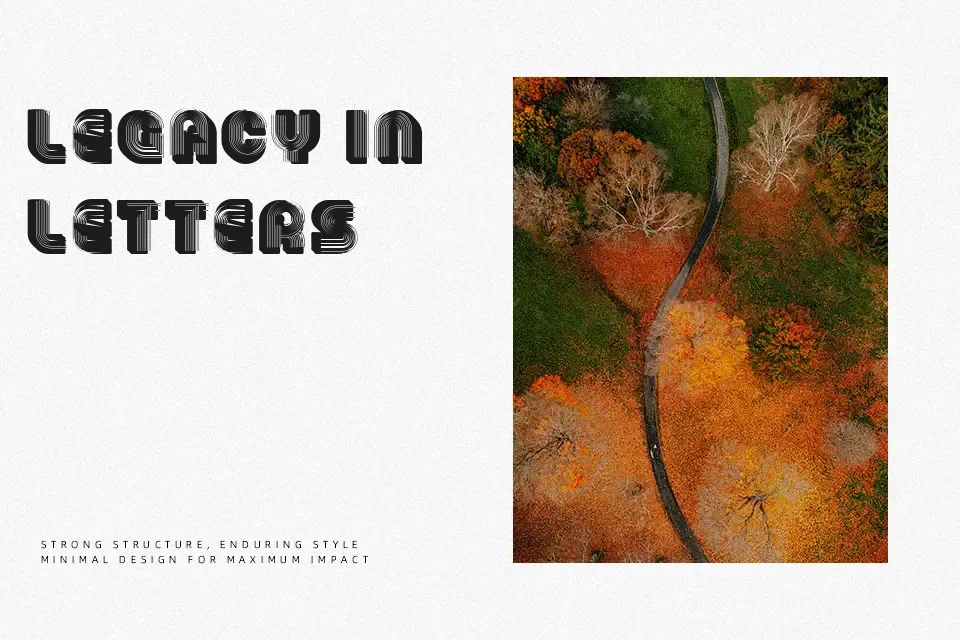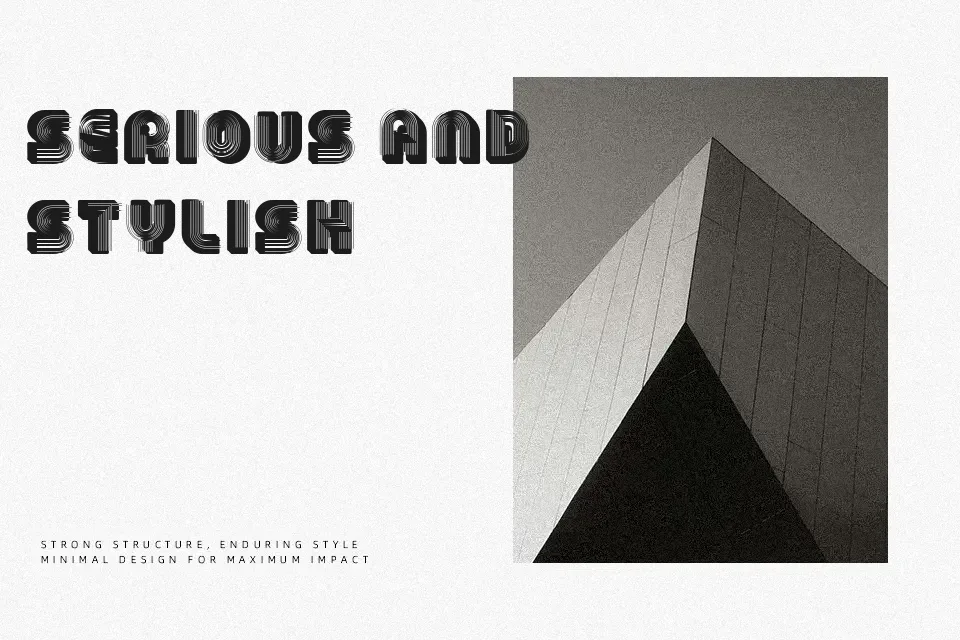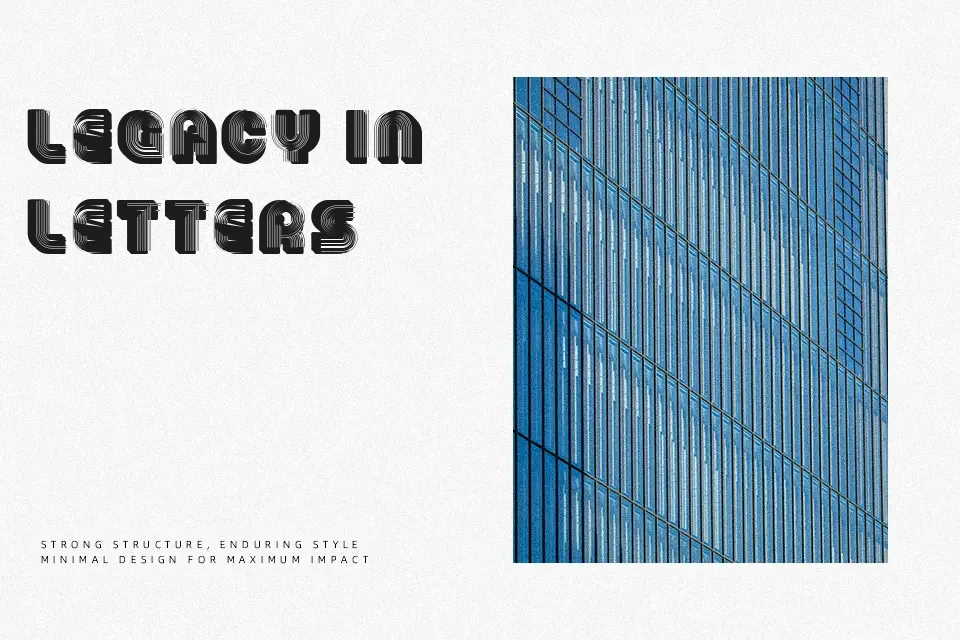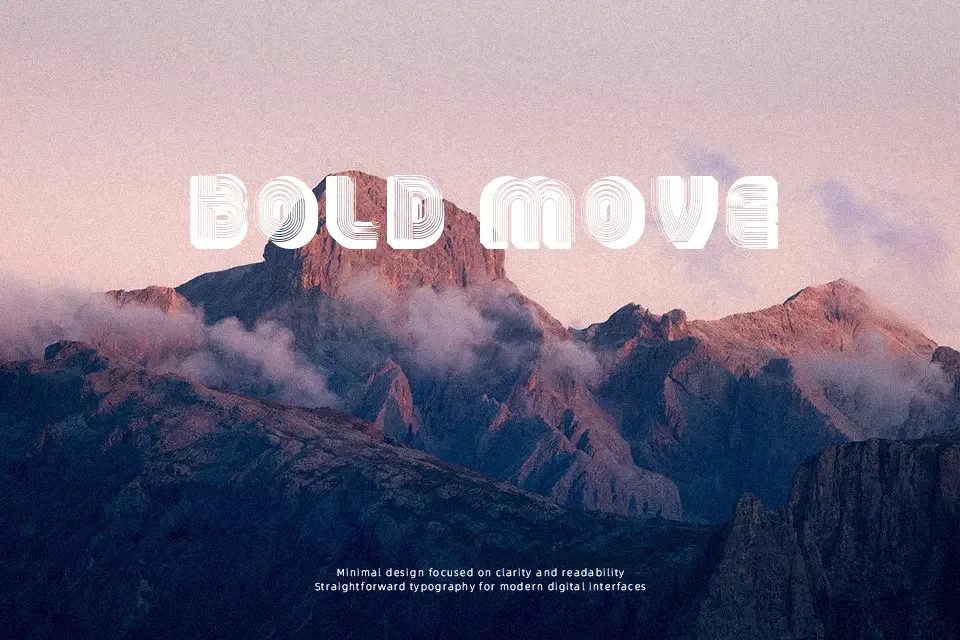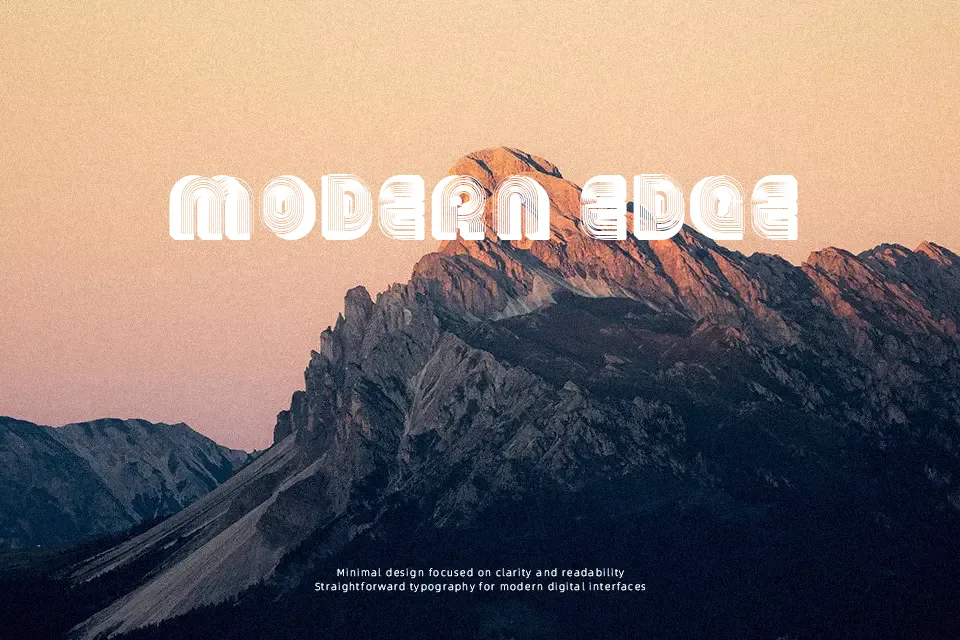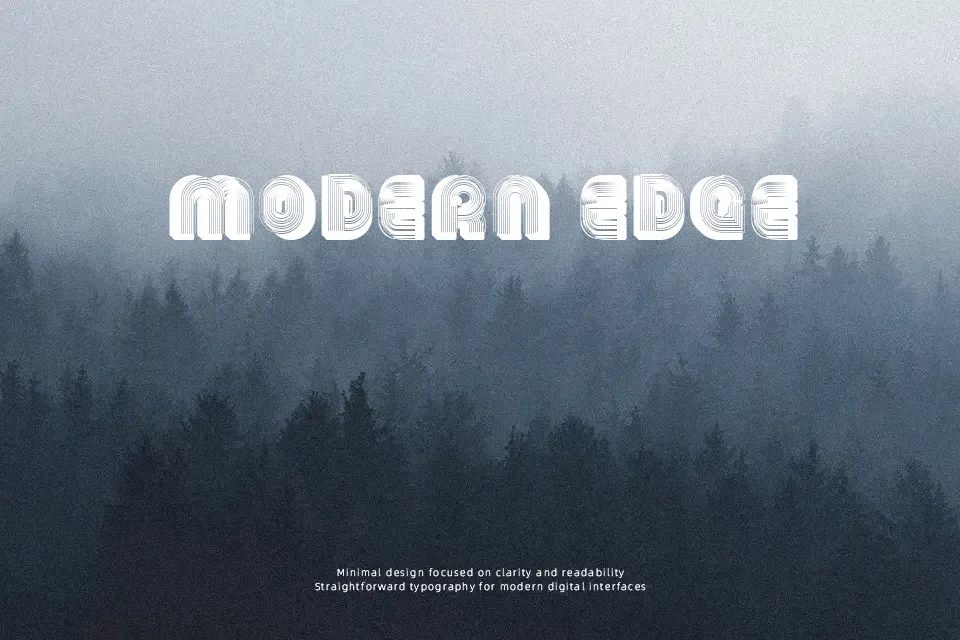
3D Models Font
Straight from a use-case perspective — if you’re designing a game cover, sci-fi title sequence, or tech event banner, 3D Models Font earns its place. The letterforms feature thick strokes with an extruded, block-style construction that mimics physical depth, giving text a rendered or modeled appearance. Spacing is generous enough to let each character breathe without crowding. It reads confidently at large sizes and carries a bold, mechanical energy suited to digital-native contexts. That said, legibility drops sharply at small sizes, and it’s completely unsuitable for body copy or any context requiring extended reading. Best deployed sparingly — as a headline or logo lockup, not a workhorse font.
– Gaming channel title cards and YouTube thumbnails
– Sci-fi or tech event poster headlines
– 3D-themed branding or product mockup labels
– Bold display headers for digital advertising
– Body text or multi-line paragraph content
– Print materials requiring fine detail at small sizes
– Corporate or formal professional documents
– Minimalist or editorial design layouts